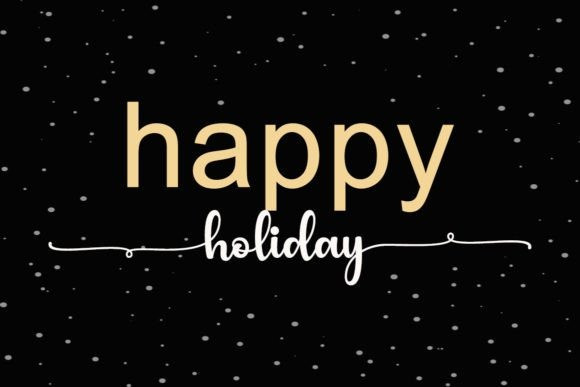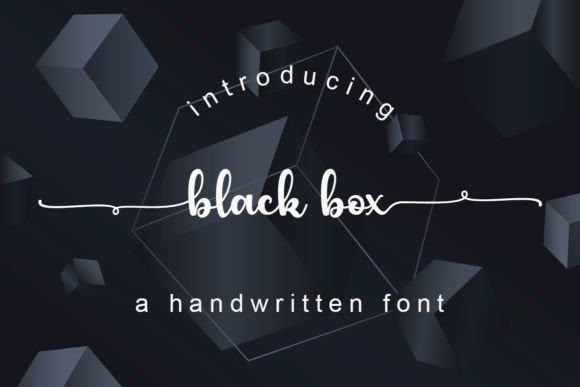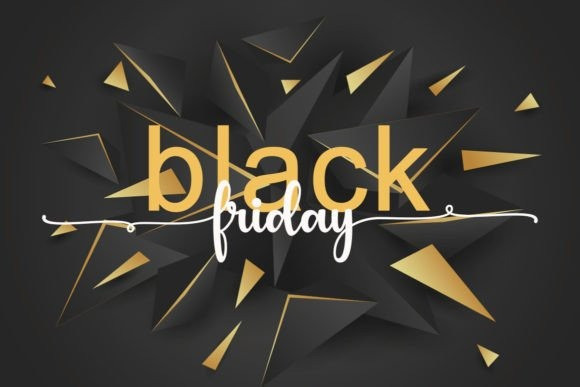
Black Box Script Font
Black Box Script Font is an enchanting handwritten font. This versatile typeface has a wide spectrum of applications, ranging from greeting cards to headlines. Black Box is PUA encoded, which means you can access all of the glyphs and swashes with ease!